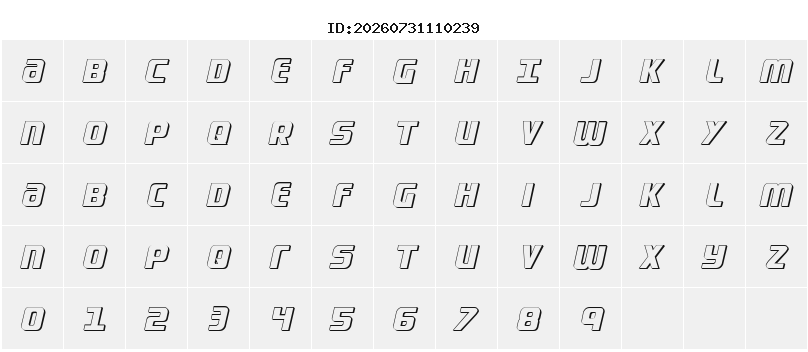
Lightsider 3D Preview
• Font Name: Lightsider 3D
• Font ID: Lightsider Regular 3D: 2011
• Full Font Name: Lightsider 3D Regular
• PostScript Name: Lightsider3D
About Lightsider 3D.ttf
Lightsider 3D.ttf is a modern, elegant sans-serif font designed for ultimate readability and visual harmony. Perfect for branding, headlines, web design, and print materials.